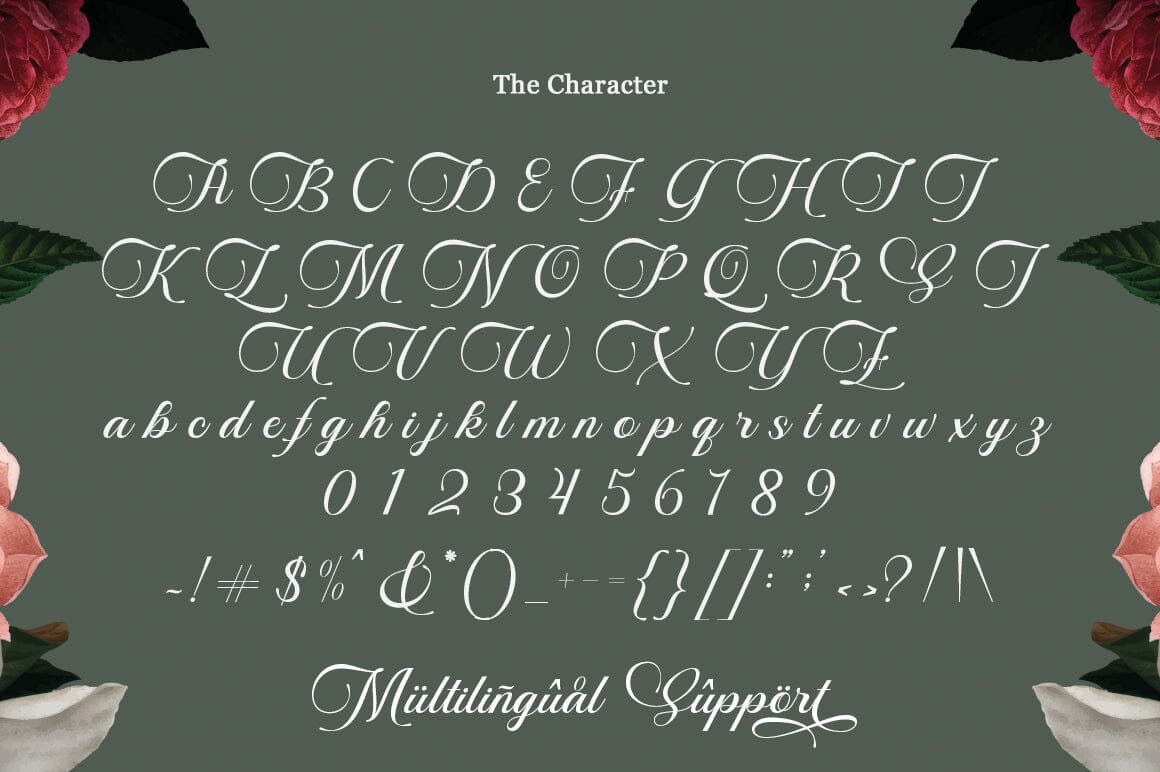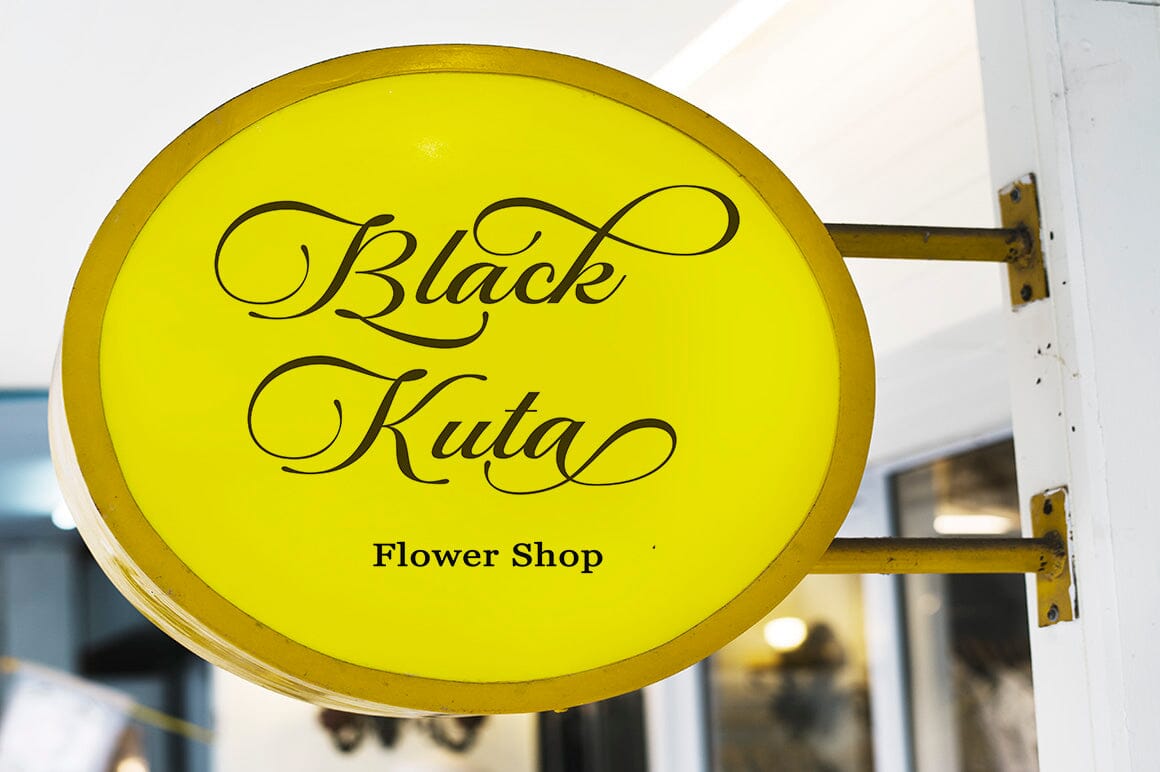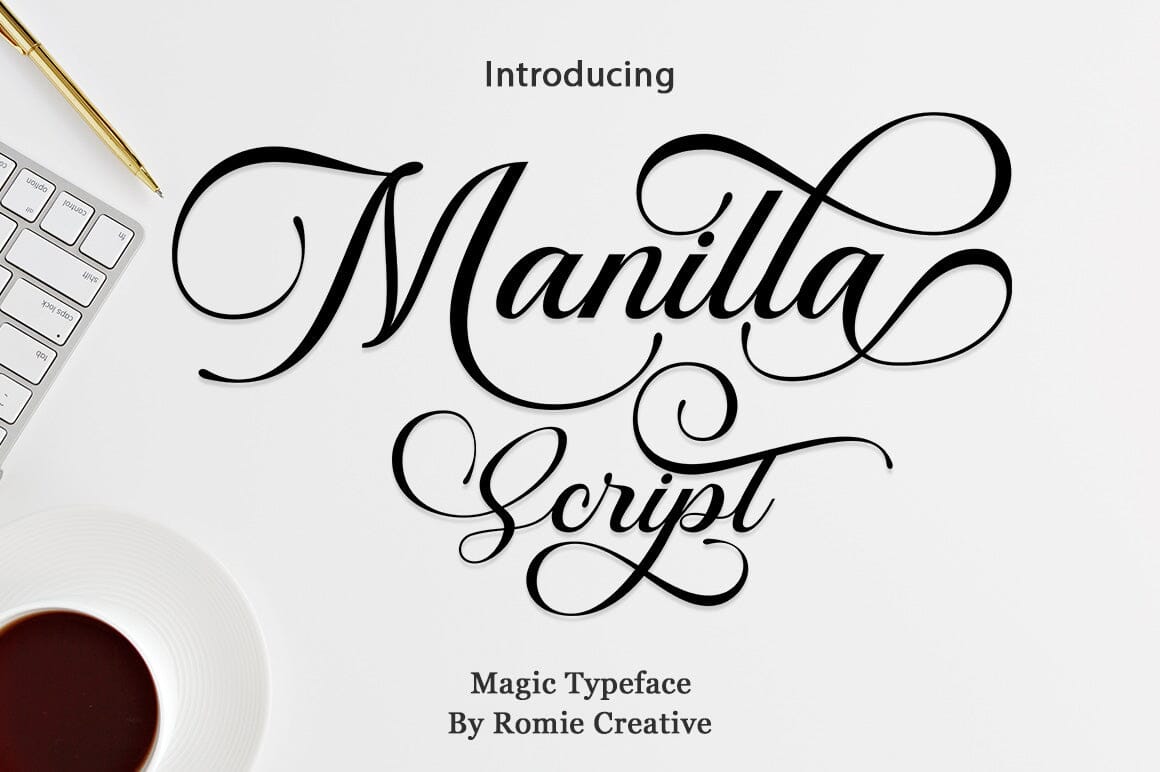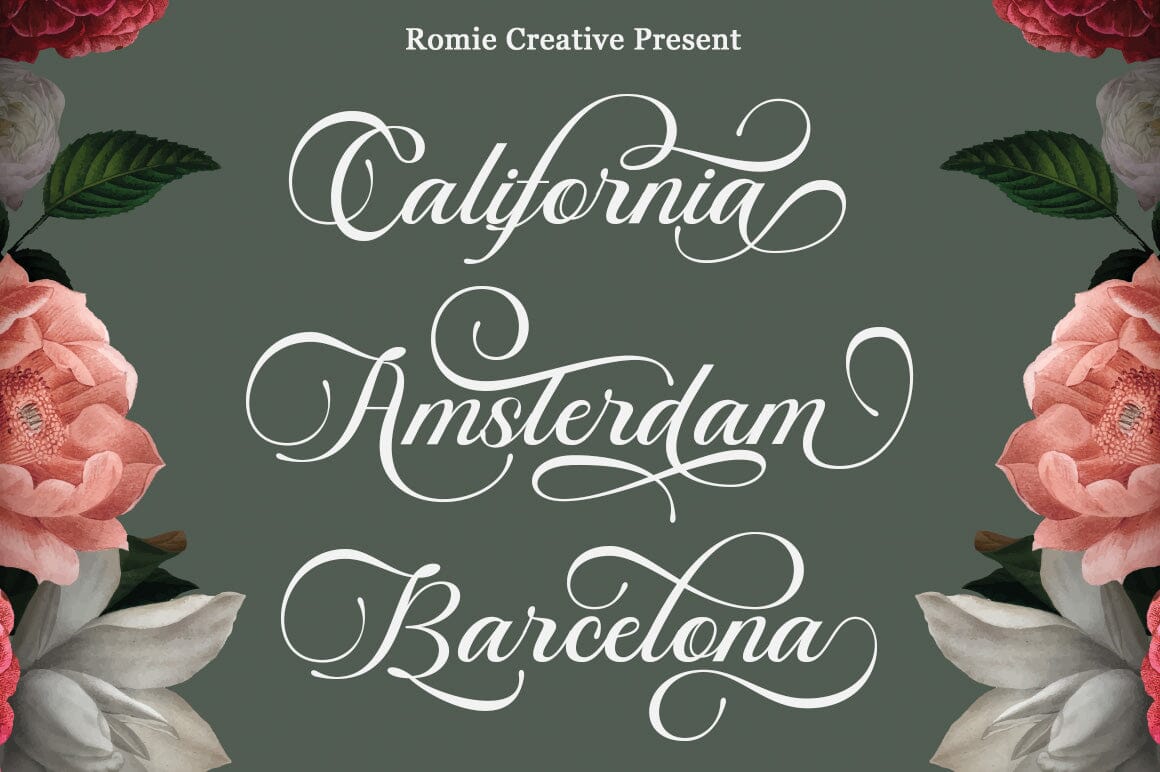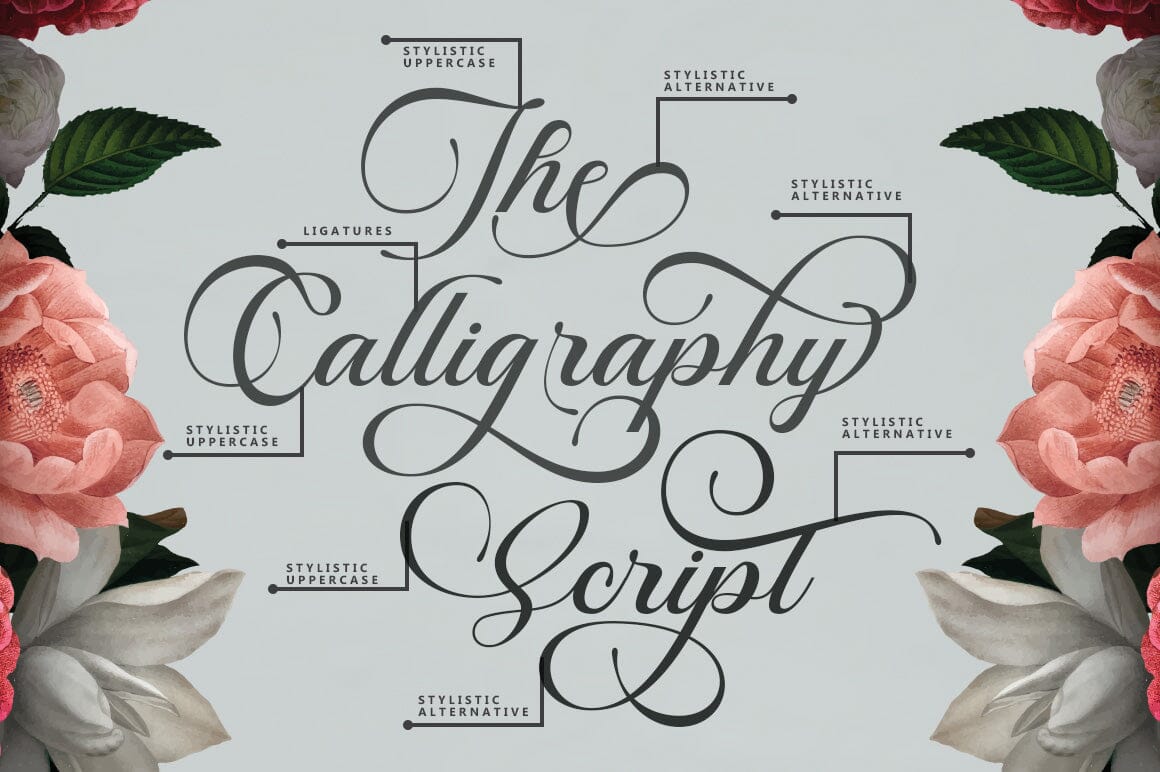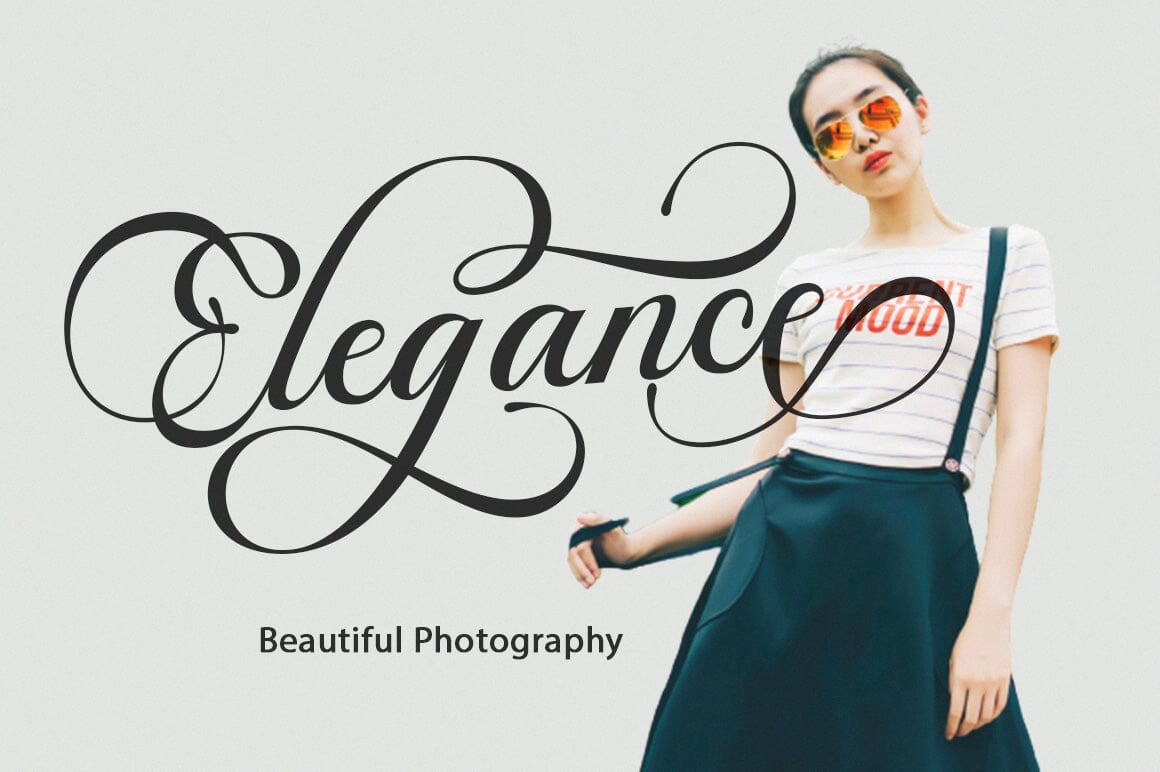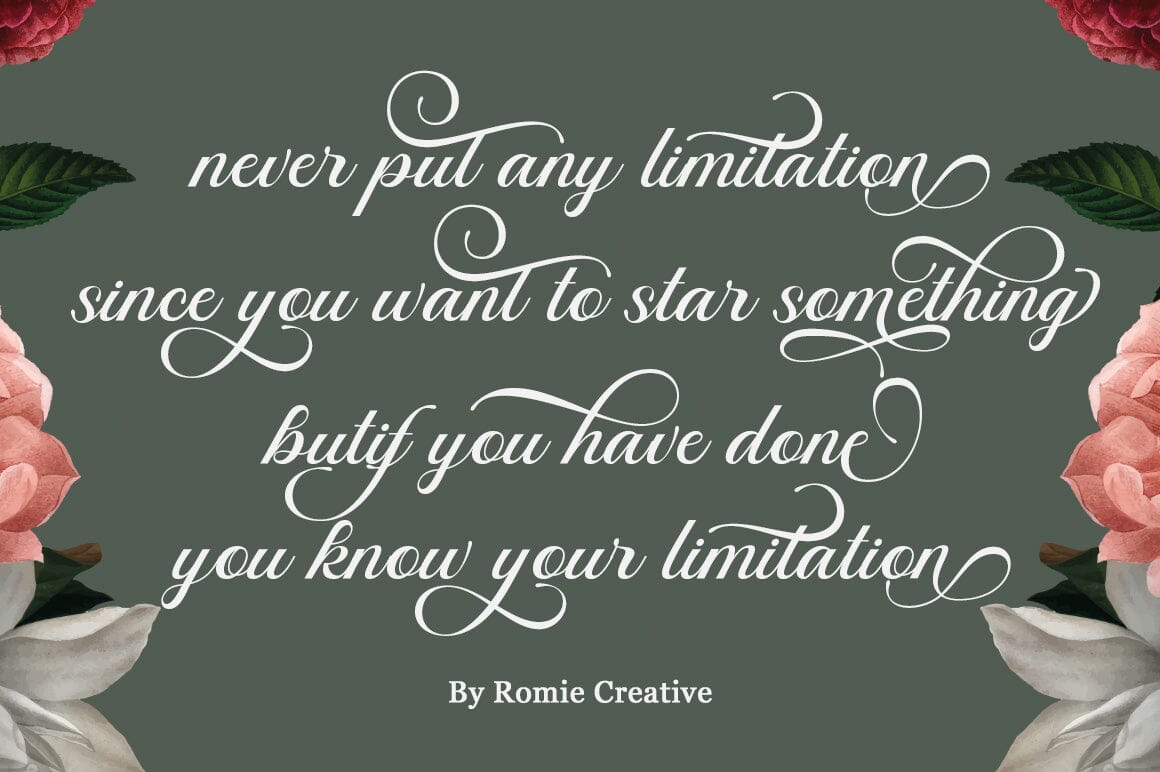
Manilla Script
About Manilla Script
Hello.. Introduced by Romie Creative, Manilla Script, a fresh & modern new calligraphy script with a luxurious calligraphy style. A classy, yet modern impression keeps \”Manilla Script\” catchy for all your creativity. Stunning and very beautiful typeface on invitations such as greeting cards, branding materials, business cards, quotes, posters and much more! The Open Type feature can be accessed using smart Open Type programs such as Adobe Illustrator, Adobe InDesign, versions of Adobe Photoshop Corel Draw X, and Microsoft Word. And this Font has provided unicode PUA (custom coded font). so that all alternative characters can be easily accessed in full by craftsmen or designers. Feature : Uppercase & Lowercase, International Languages & Symbols Supports Punctuation & Numerals PUA Unicode Range, Standard Ligatures, Discretionary Ligatures, Style Alternate, Swash & many more characters. ** The file includes the following :)))) Manilla Script. OTF Manilla Script. TTF So, let’s get it! Thank you and enjoy your day…!. 🙂